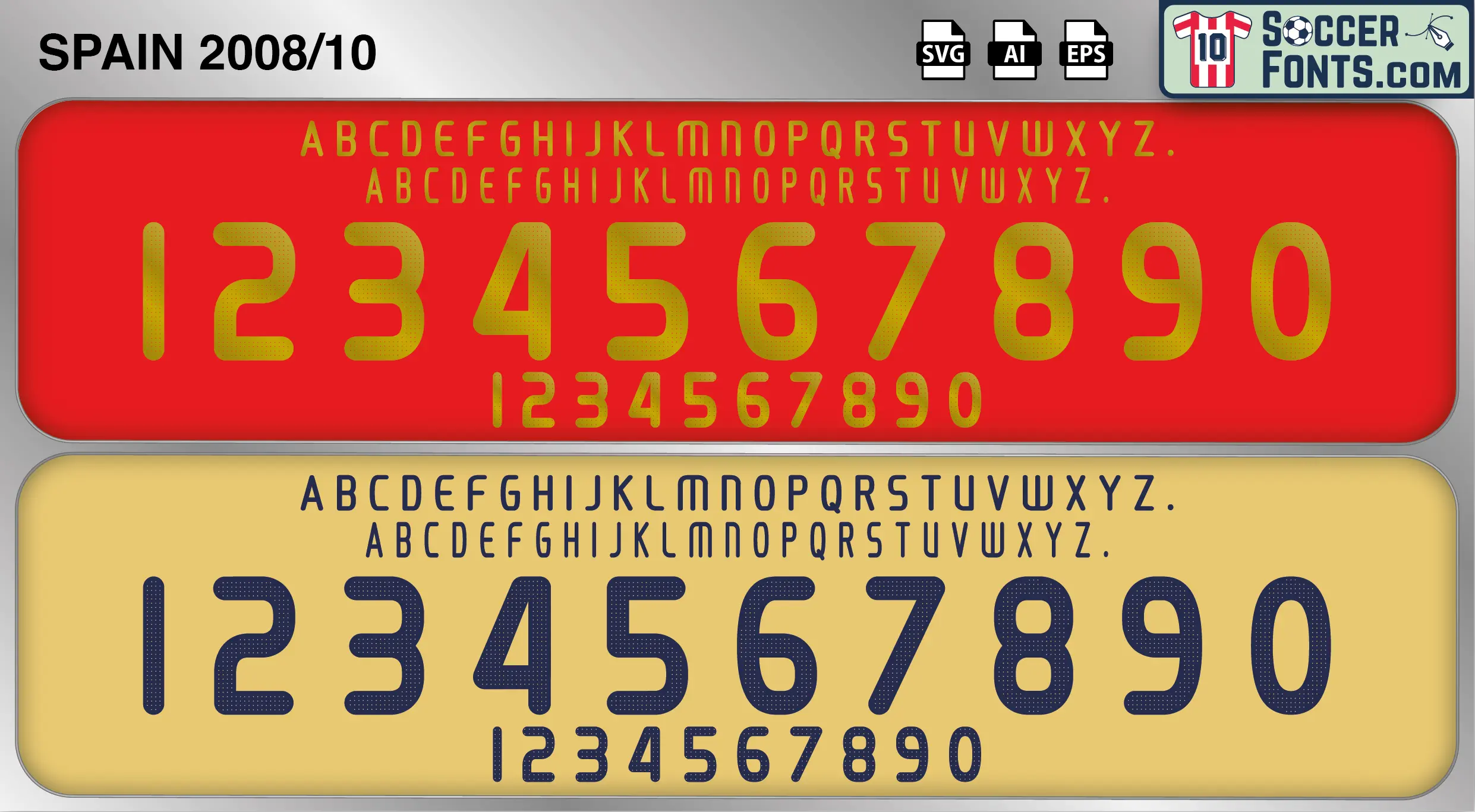
Spain 2008-10 Font
The Spain 2008-10 font is an editable soccer jersey lettering design in vector format inspired by the Spain kit style used during the 2008-10 football seasons. This football font artwork is prepared for football shirt recreations, custom jersey projects, football kit mockups and sports graphic design workflows.
The 2008-10 era represented the peak of Spain’s rise to the summit of world football. As reigning European champions, Spain entered the 2010 FIFA World Cup in South Africa with a squad widely regarded as one of the strongest in international football. Players such as Xavi Hernández, Andrés Iniesta, Iker Casillas, David Villa, Sergio Ramos, Xabi Alonso and Carles Puyol formed the core of a team that combined technical excellence, tactical intelligence and exceptional consistency. Throughout the tournament, Spain demonstrated its distinctive style of football and progressed through a series of tightly contested knockout matches.
The Spain 2008-10 font became forever linked with Spain’s historic 2010 FIFA World Cup victory, the first World Cup title in the nation’s history. Spain shirts from this era remain among the most iconic football shirts of the modern game because of their connection with Andrés Iniesta’s winning goal in the final and one of the greatest international teams ever assembled. The Spain 2008-10 font reflects a defining chapter in football history and remains highly significant for collectors, supporters and football enthusiasts who remember Spain’s dominance during this remarkable period.